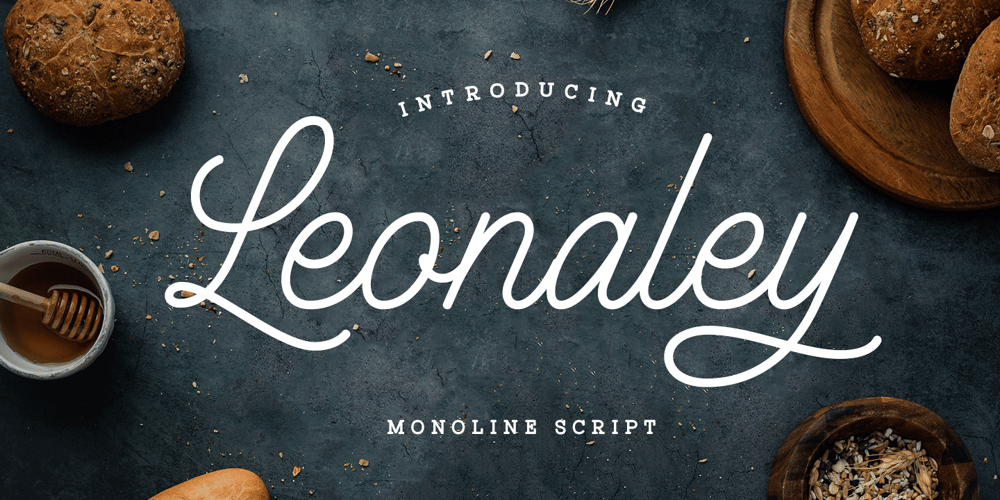
Leonaley Font Family was designed by Ahmad Ramzi Fahruddin and published by Arterfak Project. Leonaley contains 1 styles and family package options. Introducing Leonaley, a minimalist monoline font. Specifically designed with thin strokes and rich swirls to accentuate the dramatic side of this font, reaching a wider range of design styles.Leonaley offers a sweet, clean, and elegant visual impression, making it suitable for broader media applications such as weddings, quotes, greeting cards, boutiques, logos, labels, neon signs, and more.This font has multilingual support and comes with many alternates and swashes to embellish your designs.What you’ll get : Uppercase Lowercase Numbers Symbols Punctuation Stylistic alternates Stylistic Set 01-09 Swashes Good luck with your project! Thanks